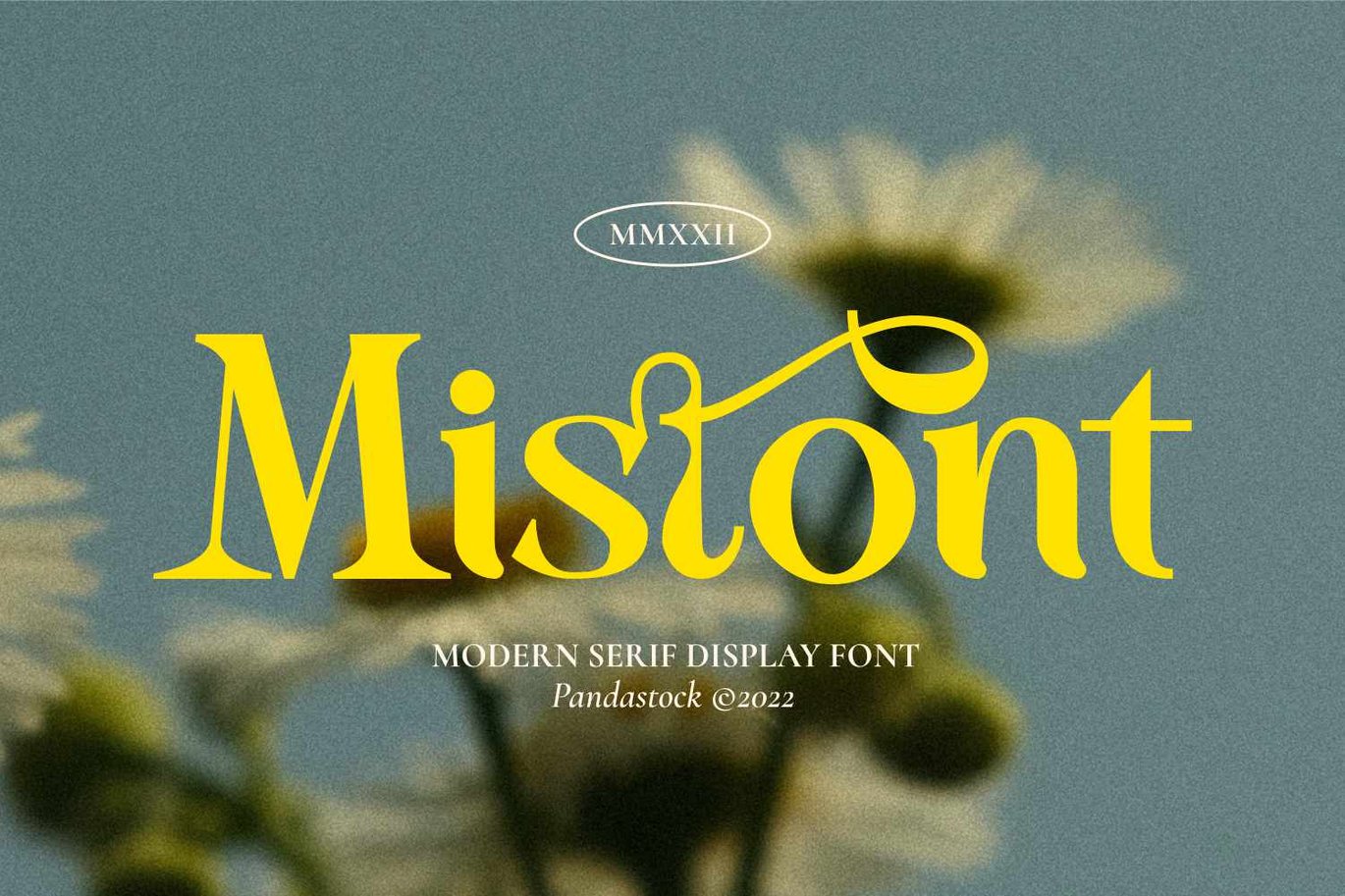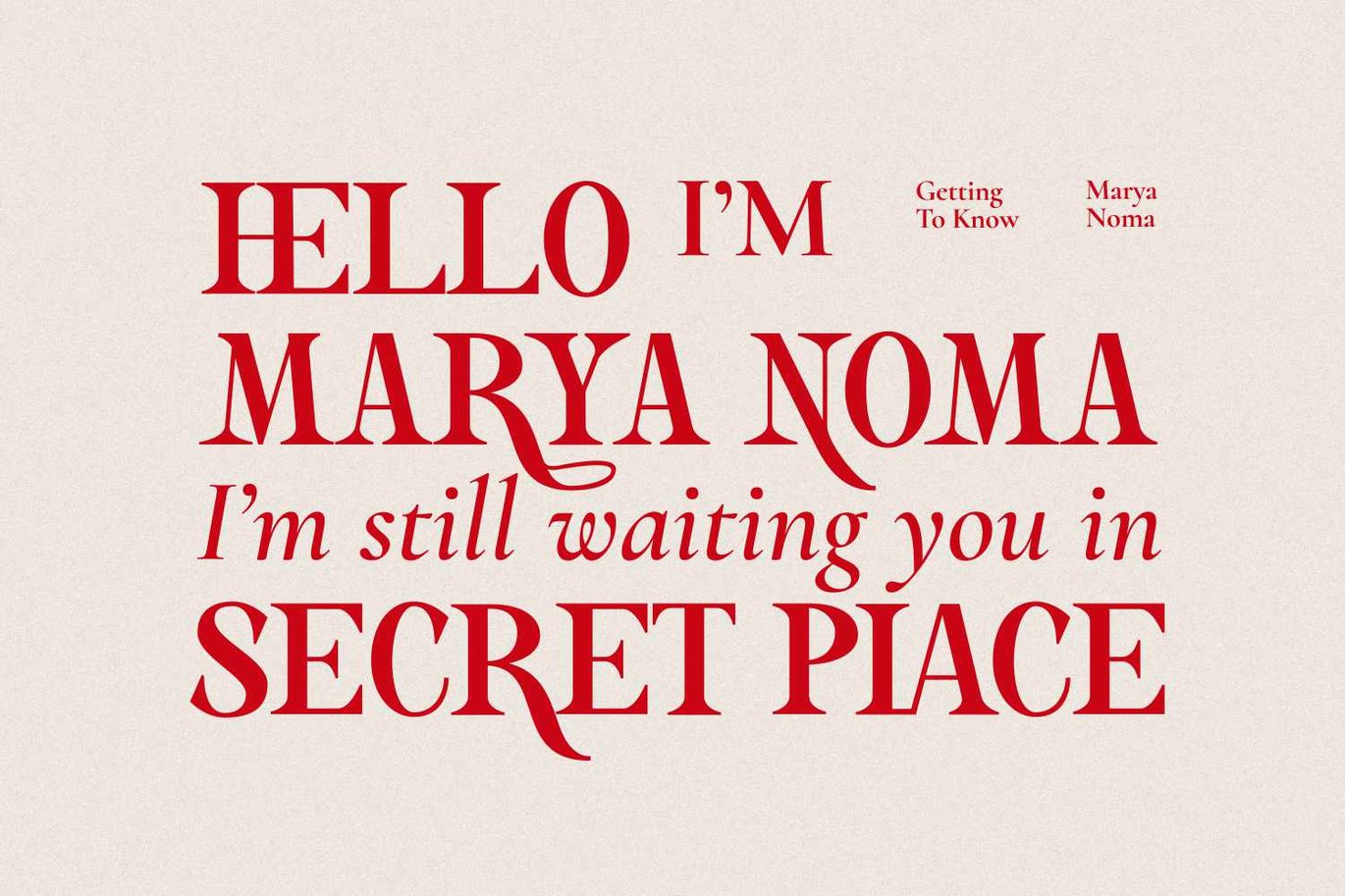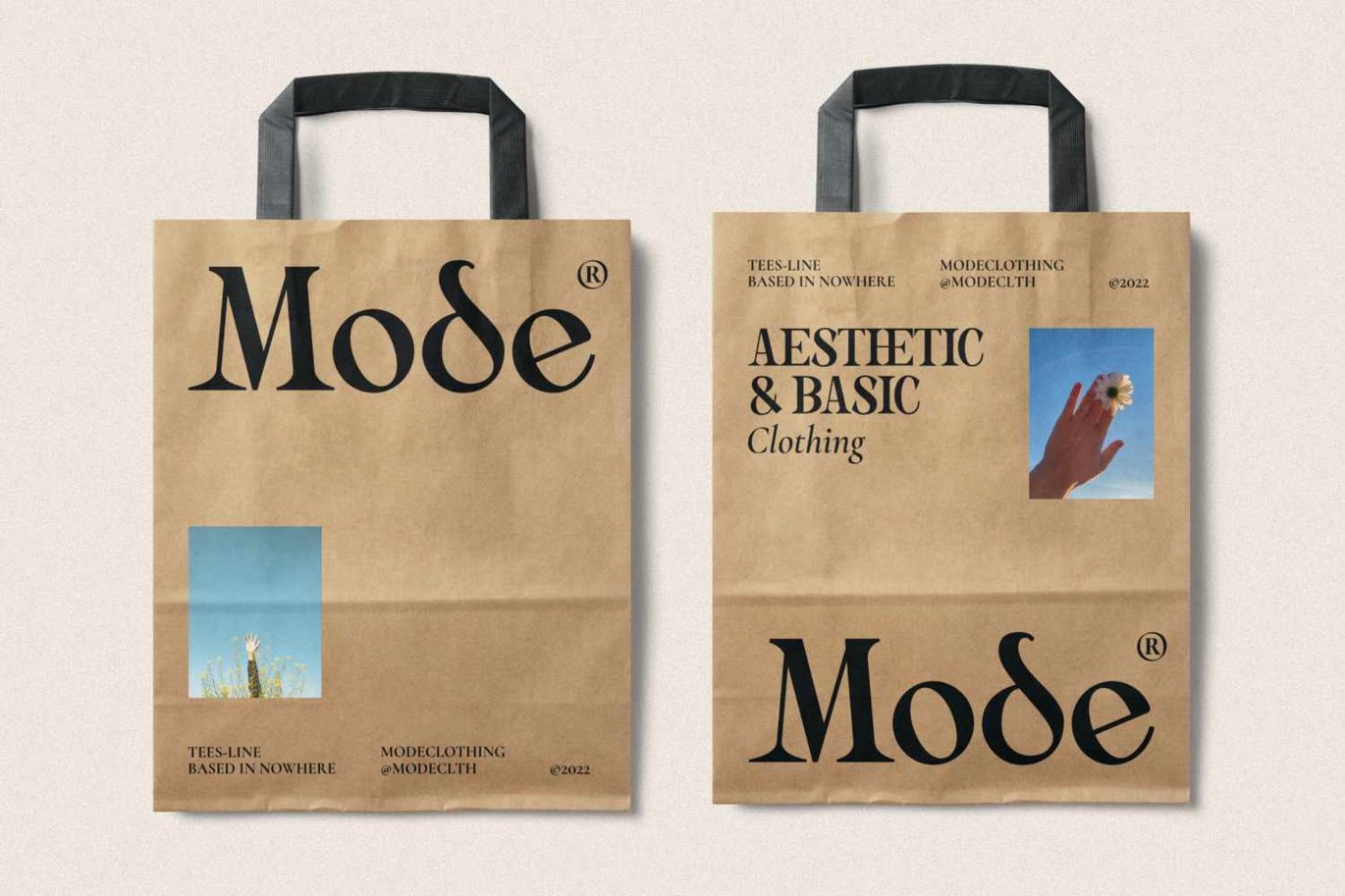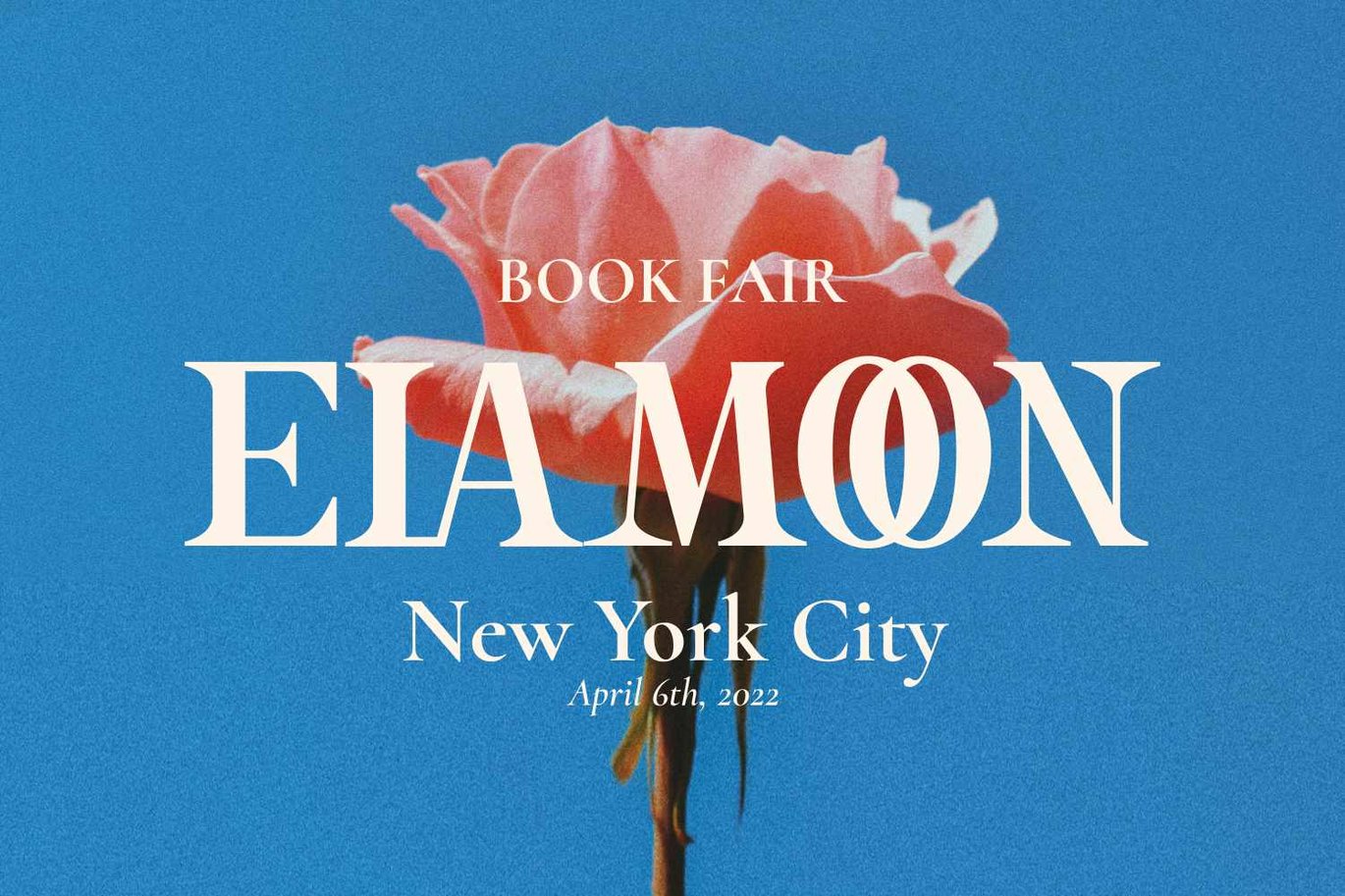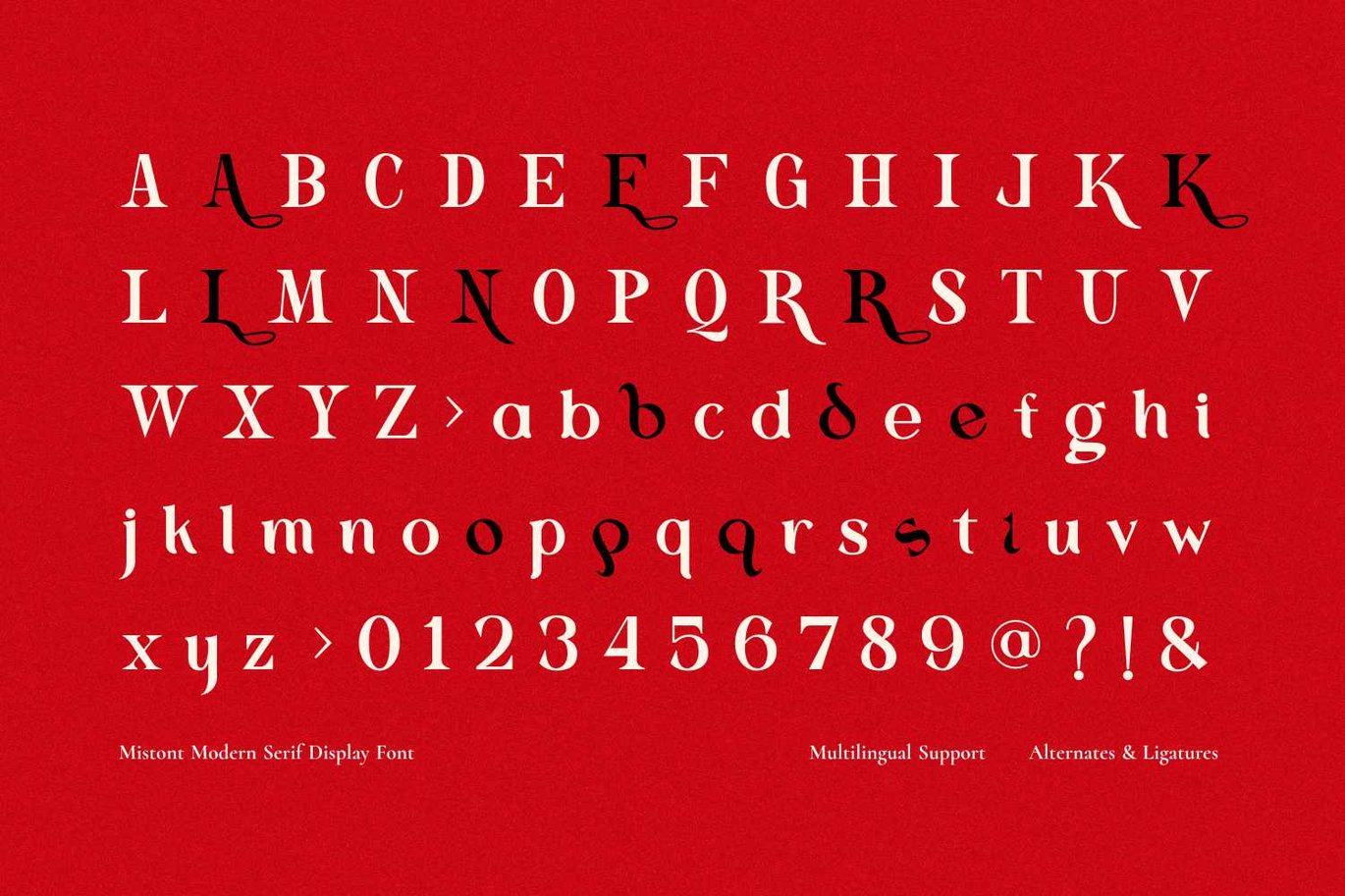
Mistont – Summer Font
Mistont is a special summer font. Made with accurate accuracy with beautiful curves. With alternative characters and ligatures that make your work very special.
Suitable works in both uppercase and lowercase sizes, suitable for a wide variety of projects such as a display font for headings, logo fonts, invitations, branding, book covers, magazine layouts, wedding, product packaging, product mockup, signature, posters, labels, editorials, art deco, and any type of advertising purpose.
- Punctuation, Number and Symbol
- Multilingual Support ÀÁÂÃÄÅÆÇÈÉÊËÌÍÎÏÐÑÒÓÔÕÖØÙÚÛÜÝ